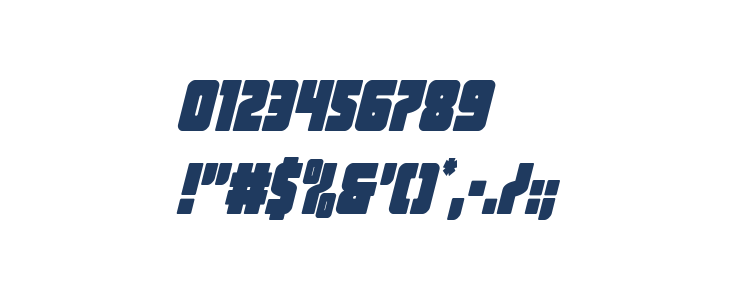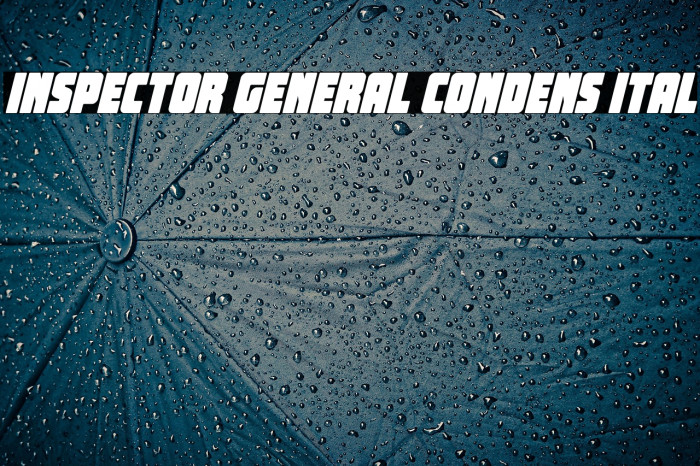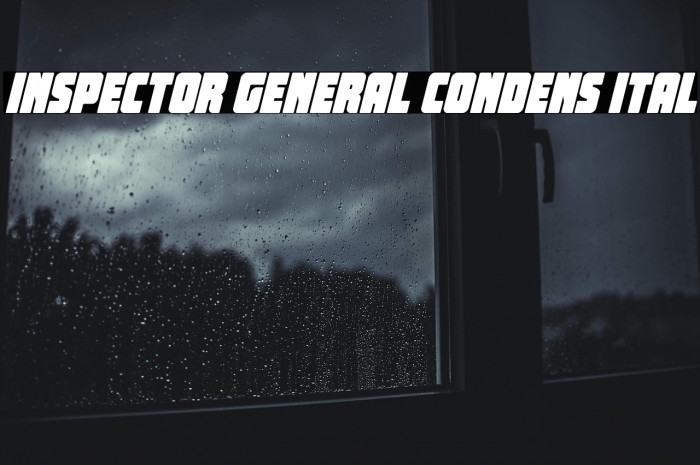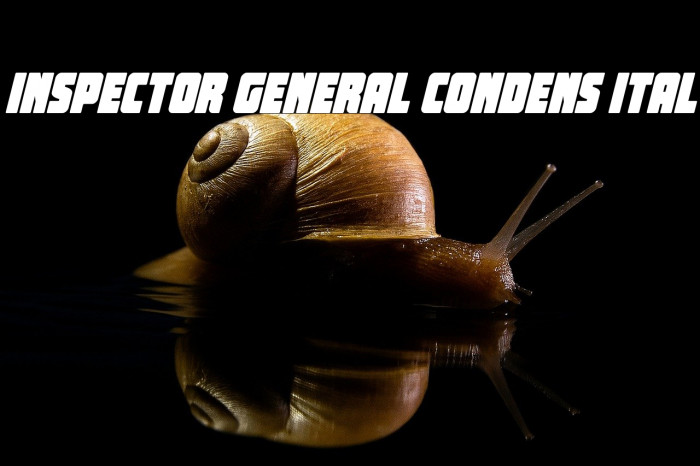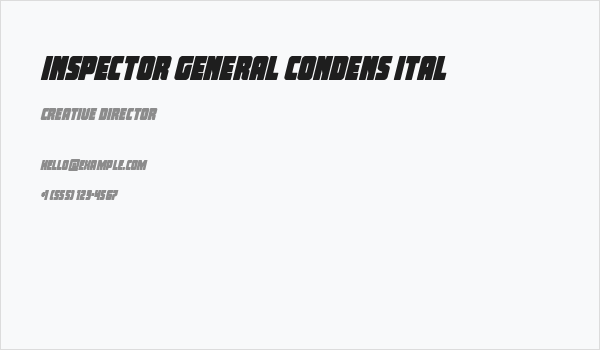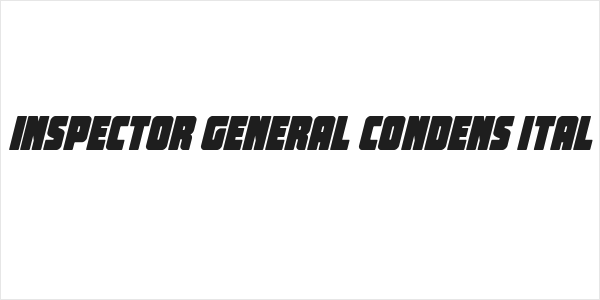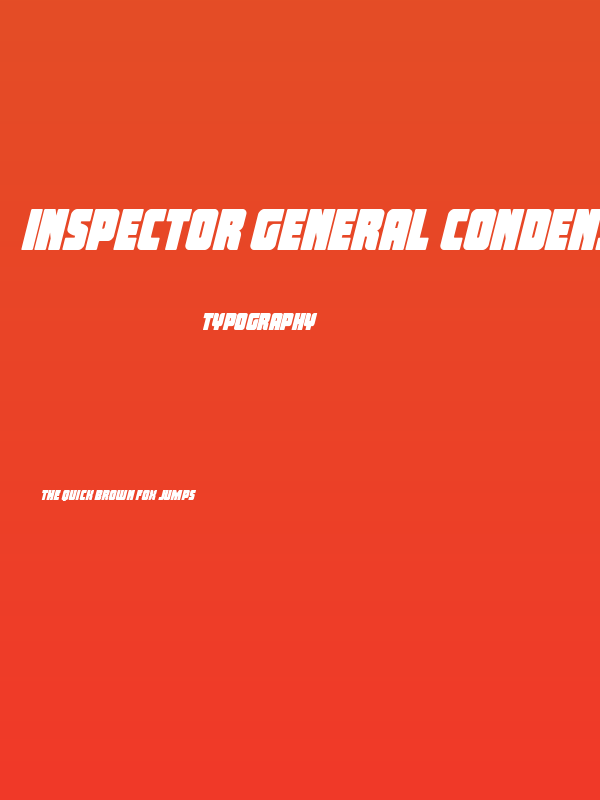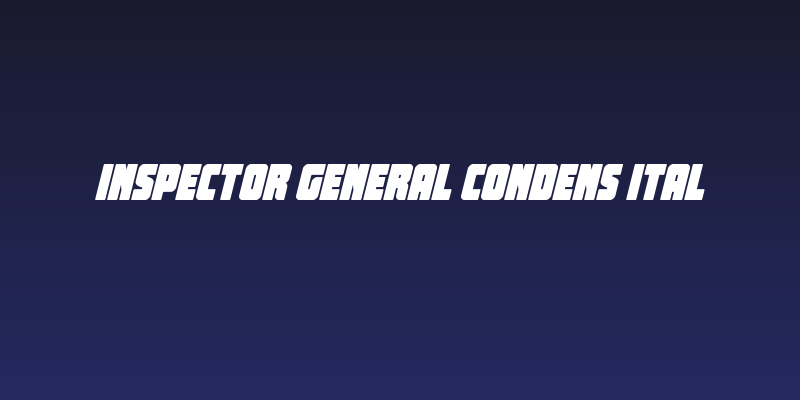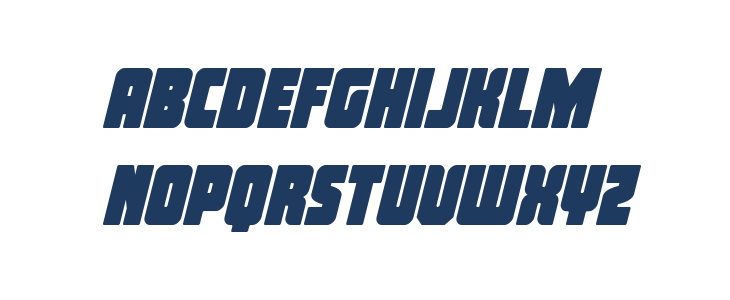
Inspector General Condens Ital Font
Inspector General Condens Ital Description
This bold and striking font features a condensed style with a strong italic slant, giving it a dynamic and energetic appearance. The characters are thick and blocky, with a consistent stroke width that emphasizes its boldness. The uppercase letters are particularly prominent, while the lowercase letters maintain the same robust style. Numbers and special characters are equally bold, ensuring a cohesive look across all text elements. The font's condensed nature allows for efficient use of space, making it ideal for impactful headlines and attention-grabbing designs.